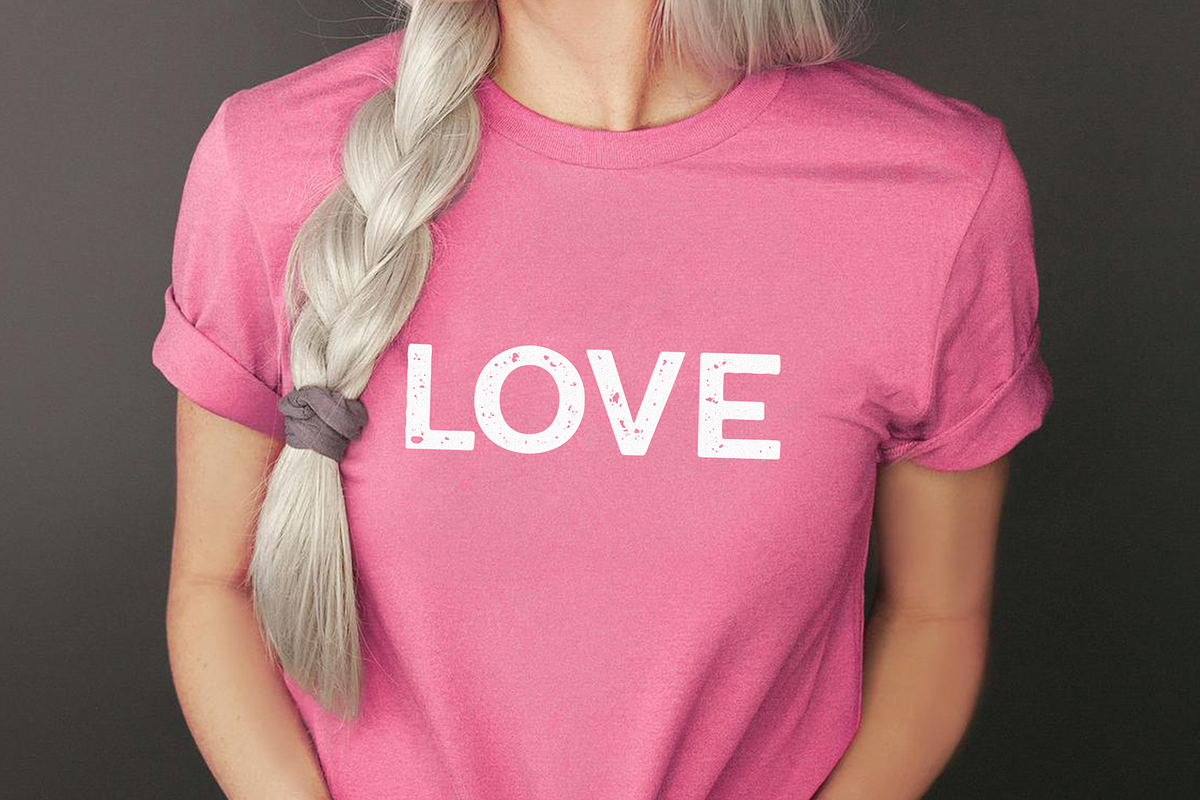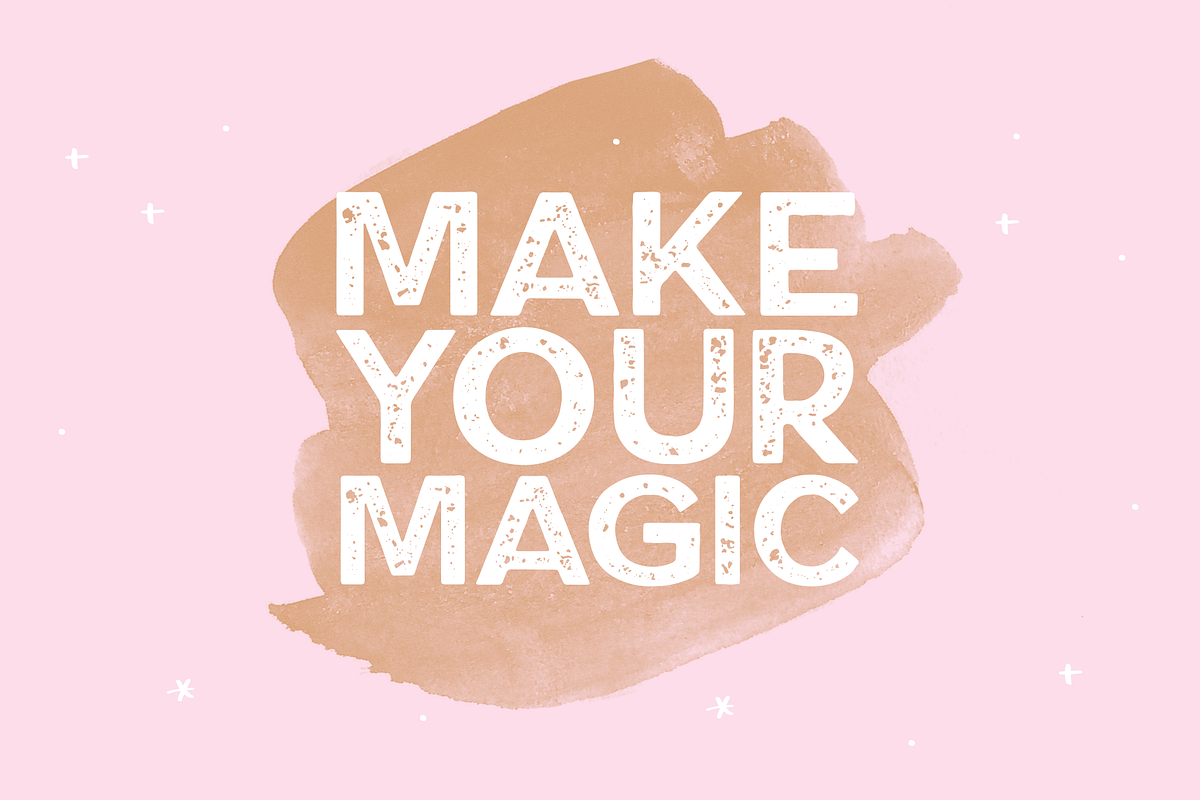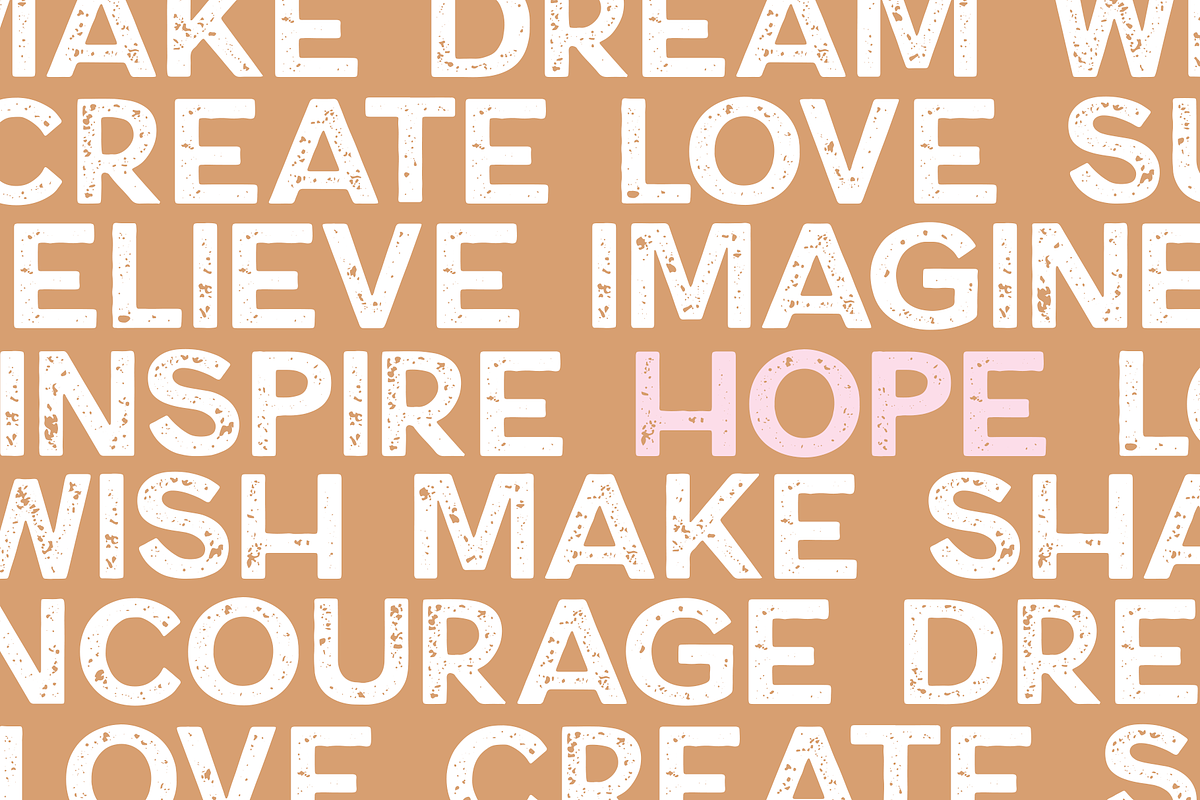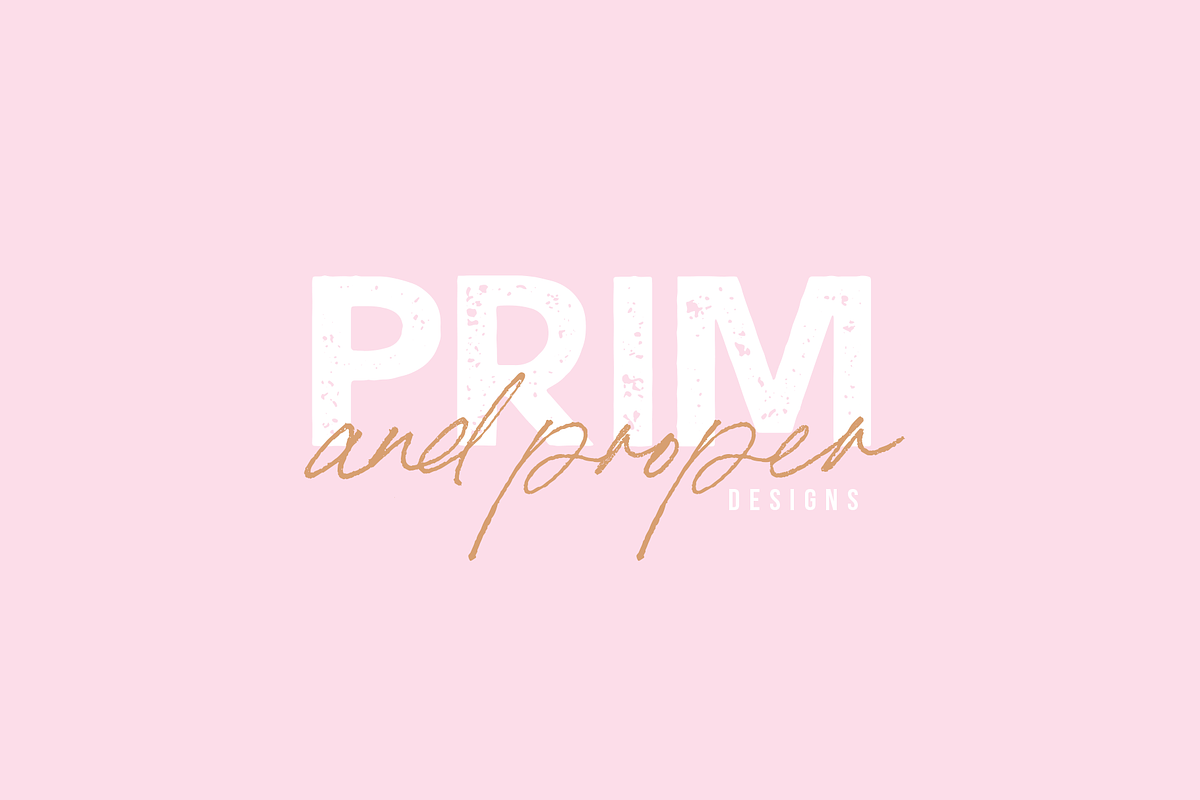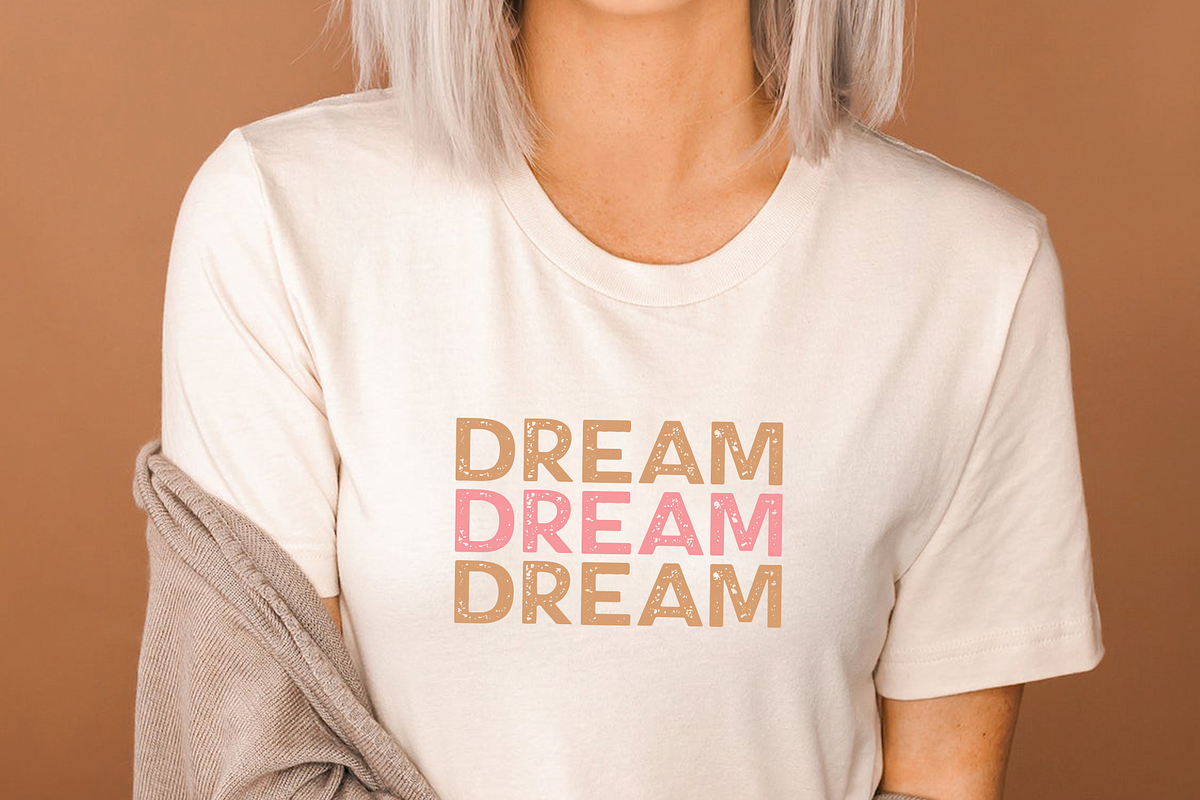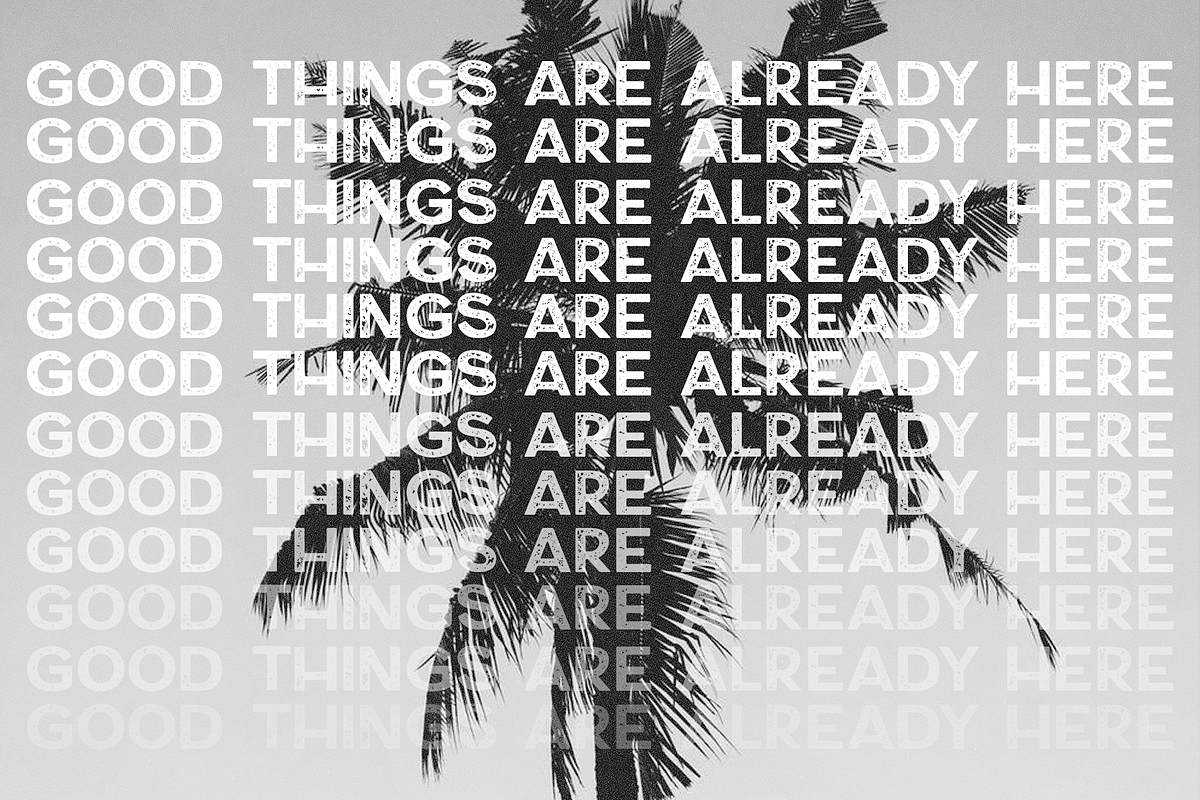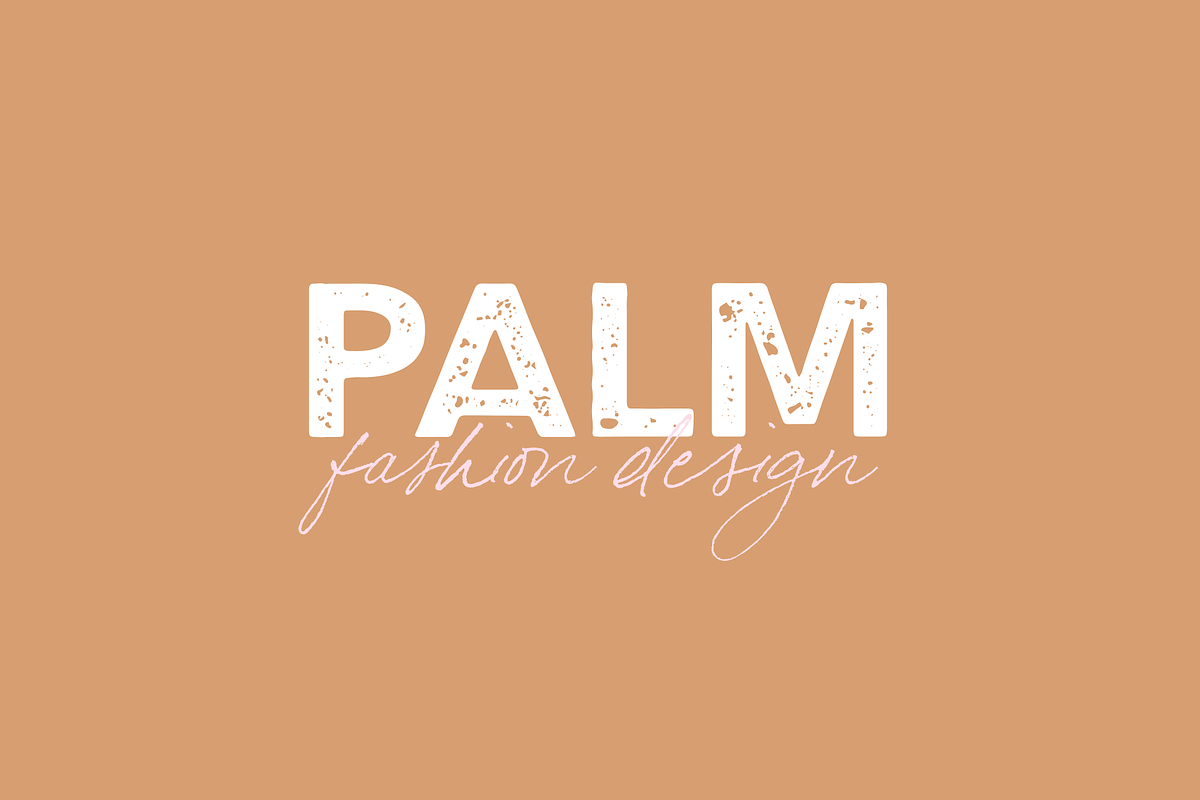
Dream Maker | Distressed Font
Dream Maker is a distressed + grunge font.
This font is perfect for branding, logos, web, t-shirts, social media, quotes, craft projects and more!
Dream Maker | Distressed Font by KA Designs fits naturally into Branding, posters, packaging, typography.